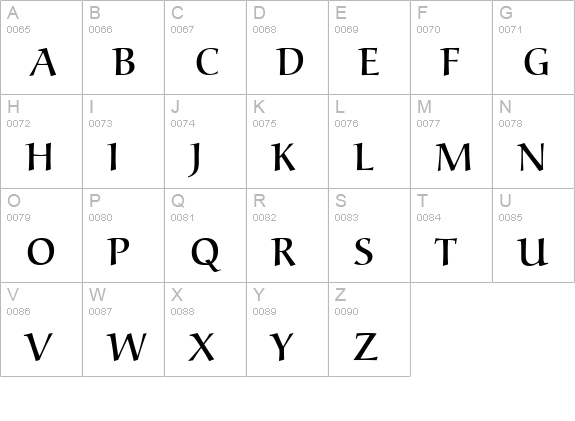
URWAlcuinSCT Font Details
URWAlcuinSCT font is an elegant and sophisticated typeface that exudes a timeless charm. Its classic design, inspired by the renowned Alcuin typeface, adds an air of refinement to any project or text it is applied to. With its clean lines, balanced proportions, and graceful curves, URWAlcuinSCT brings a sense of harmony and balance to your typography. Whether used for headlines, body text, or captions, this font effortlessly captures attention and ensures legibility. This versatile font is suitable for a wide range of applications, from print materials such as books, magazines, and brochures, to digital mediums like websites, presentations, and social media graphics. Its versatility allows it to adapt to various design styles, from modern and minimalist to classic and ornate. One of the most appealing aspects of URWAlcuinSCT font is that it is freely available to download at FontsMarket.com. This means that designers, students, and anyone in need of a high-quality font can access and use it without any cost. It is a valuable resource for both personal and commercial projects, providing a professional and polished touch to your work. URWAlcuinSCT font is a testament to the power of typography in enhancing visual communication. Its timeless elegance, combined with its availability as a free download, makes it a must-have font for designers seeking to elevate their designs and convey a sense of sophistication and style.